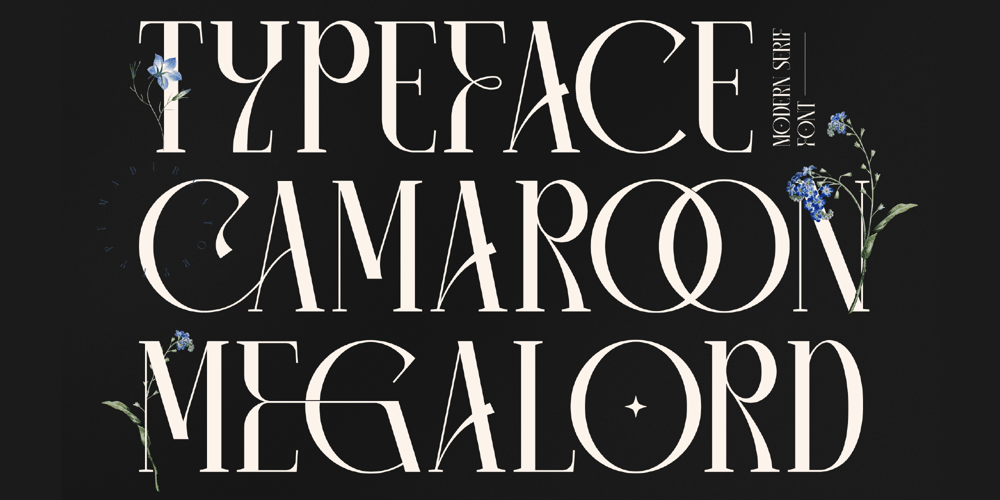
CAMAROON MEGALORD Font Family was designed by Heru Utama Putra and published by Letterena Studios. CAMAROON MEGALORD contains 2 styles and family package options. Camaroon Megalord is a stylish and cool serif font.This typeface is perfect for an elegant & luxurious logo, book or movie title design, fashion brand, magazine, clothes, lettering, quotes, and so much more.